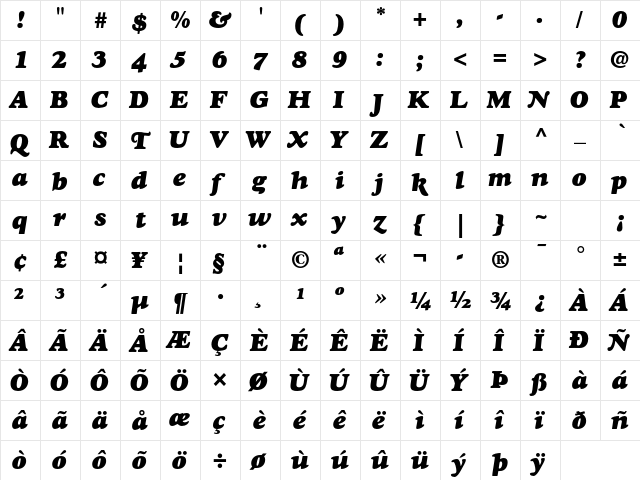
Goudy Heavyface Std Italic Font Preview
Goudy Heavyface Std Italic
Goudy Heavyface Std Italic Font Details
| Designer | Frederic W. Goudy, Morris Fuller Benton |
Design Context for Goudy Heavyface Std Typeface
Goudy Heavyface Std is a composed and adaptable typeface that performs quietly and consistently across a wide range of design contexts. Its italic angle brings a sense of urgency and motion to the letterforms.
Pro Tip: Try Goudy Heavyface Std for annotation and caption copy alongside an upright companion — the contrast in angle creates a dynamic but ordered typographic system.